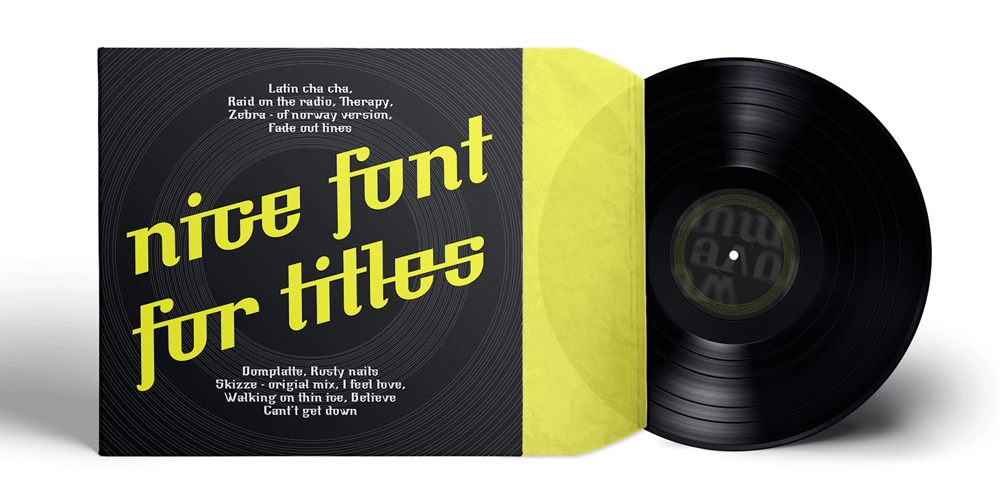
Bufon Font Family was designed by Daniel DeMilán and published by DeMilán Studio. Bufon contains 2 styles and family package options. Bufon is a font that holds many ligatures (815); a characteristic that intervenes in the rhythm of words. For this aim, a study of the combination of signs in the text was made. The interest was to detect the most frequent duets and trios of letters. Three languages were studied; English, French and Spanish.